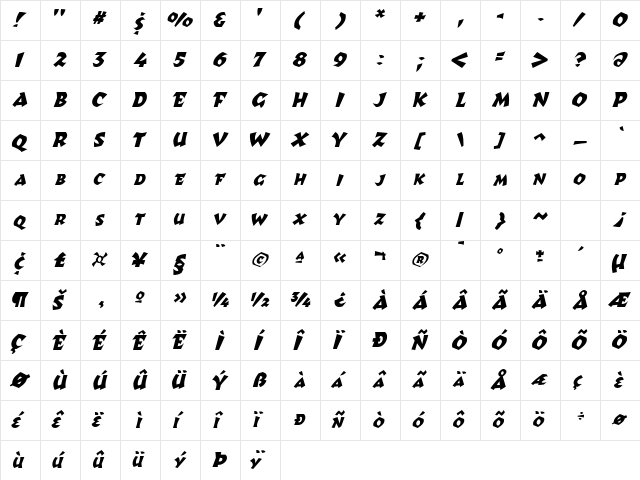
DustupSCapsSSK Italic
DustupSCapsSSK Family
DustupSCapsSSK Italic
Complete DustupSCapsSSK Italic glyph index. Displaying only characters natively supported by DustupSCapsSSK Italic font.
Design Context for DustupSCapsSSK
DustupSCapsSSK is a composed and adaptable typeface that performs quietly and consistently across a wide range of design contexts. The slanted form adds forward momentum and visual energy.